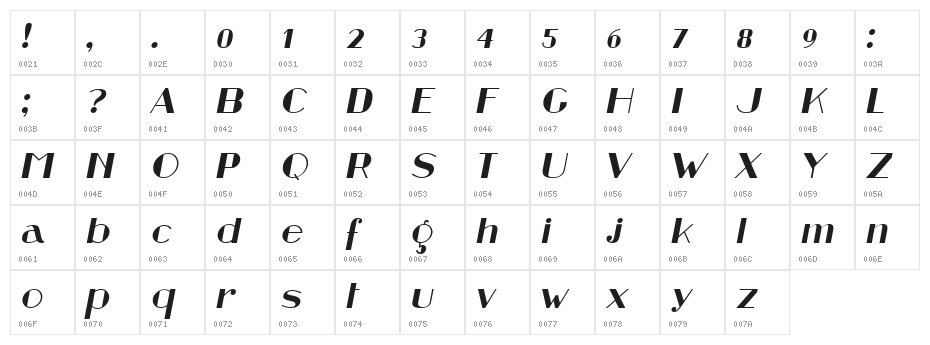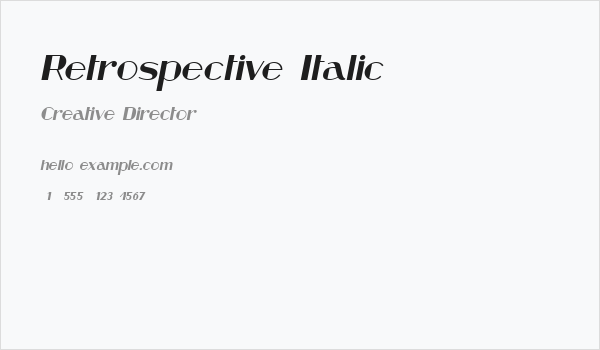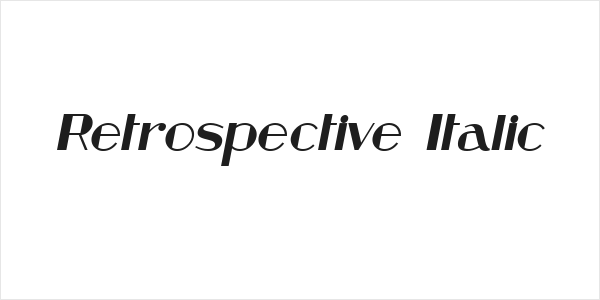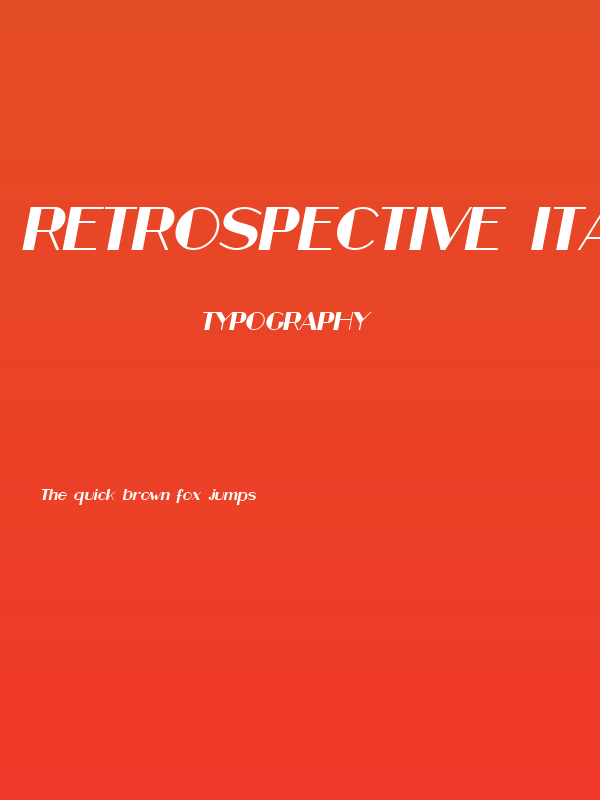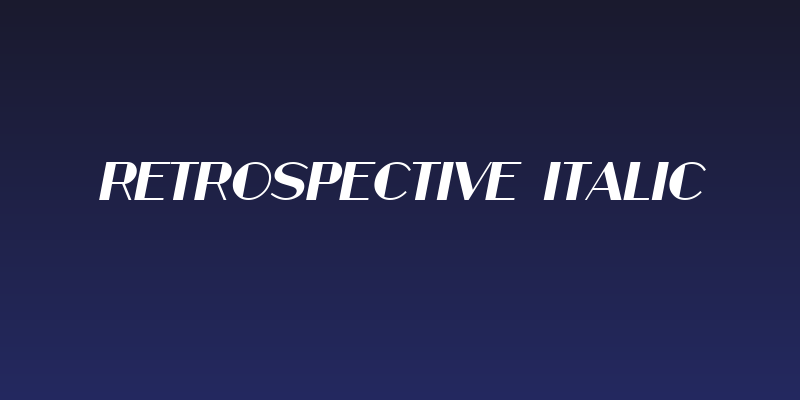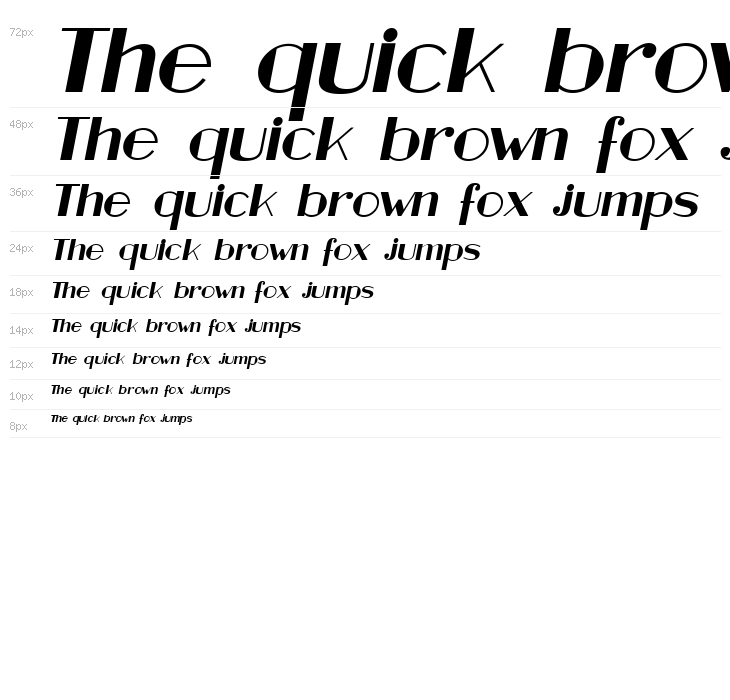
Retrospective Italic Font
Retrospective Italic Description
This font features a dynamic and elegant italic style, characterized by its sharp angles and smooth curves. The uppercase letters exhibit a strong presence with a slight slant, giving them a sense of motion and sophistication. The lowercase letters maintain a consistent flow, enhancing readability while preserving the font's unique flair. Numbers are bold and clear, ensuring they stand out in any context. Special characters are designed with the same attention to detail, seamlessly integrating with the overall aesthetic. The font's modern appeal makes it versatile for various design applications.
| Use Case | Headlines, Logos, Editorial design |
| Proposed Projects | Ideal for branding, editorial design, fashion magazines, and luxury product packaging. |